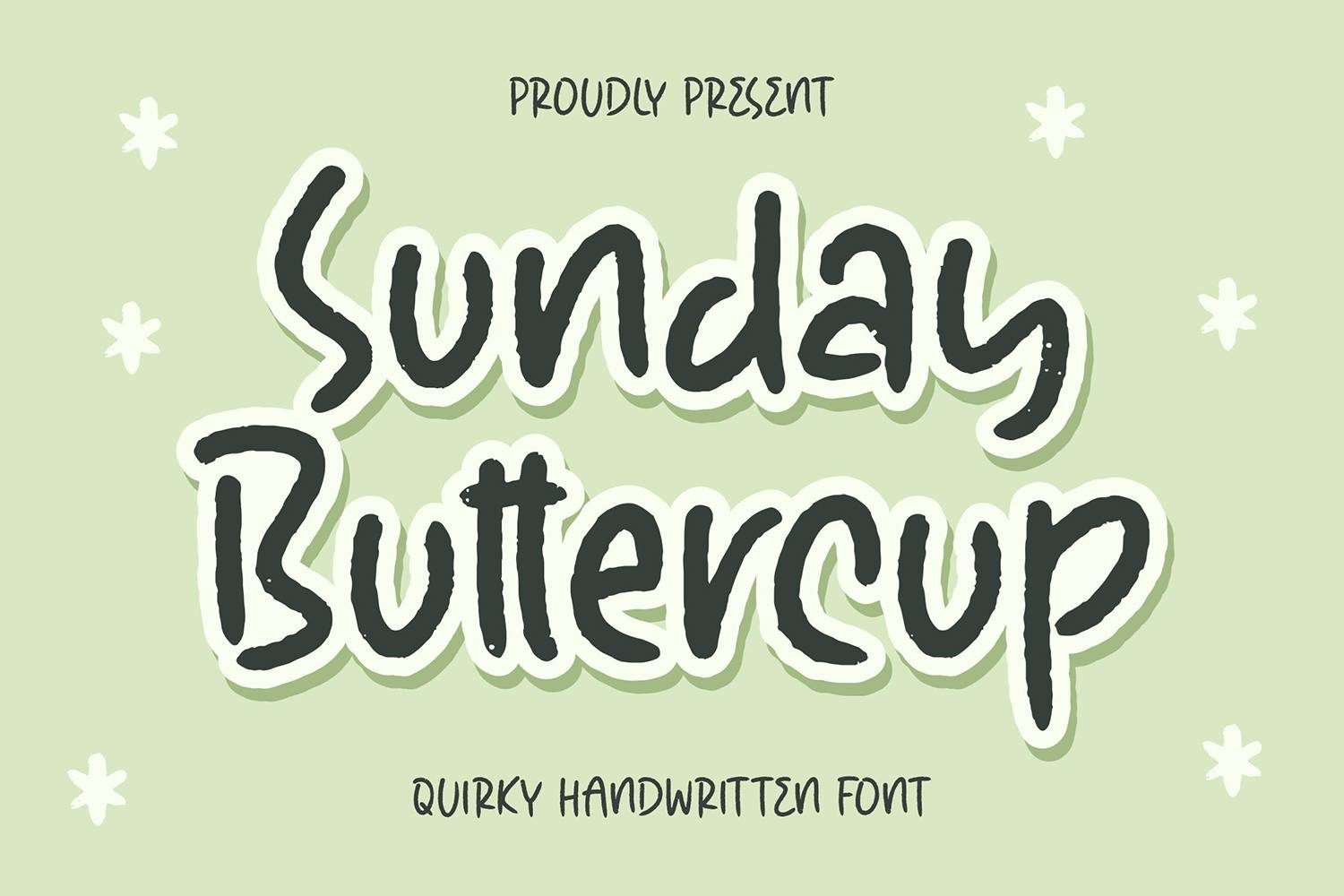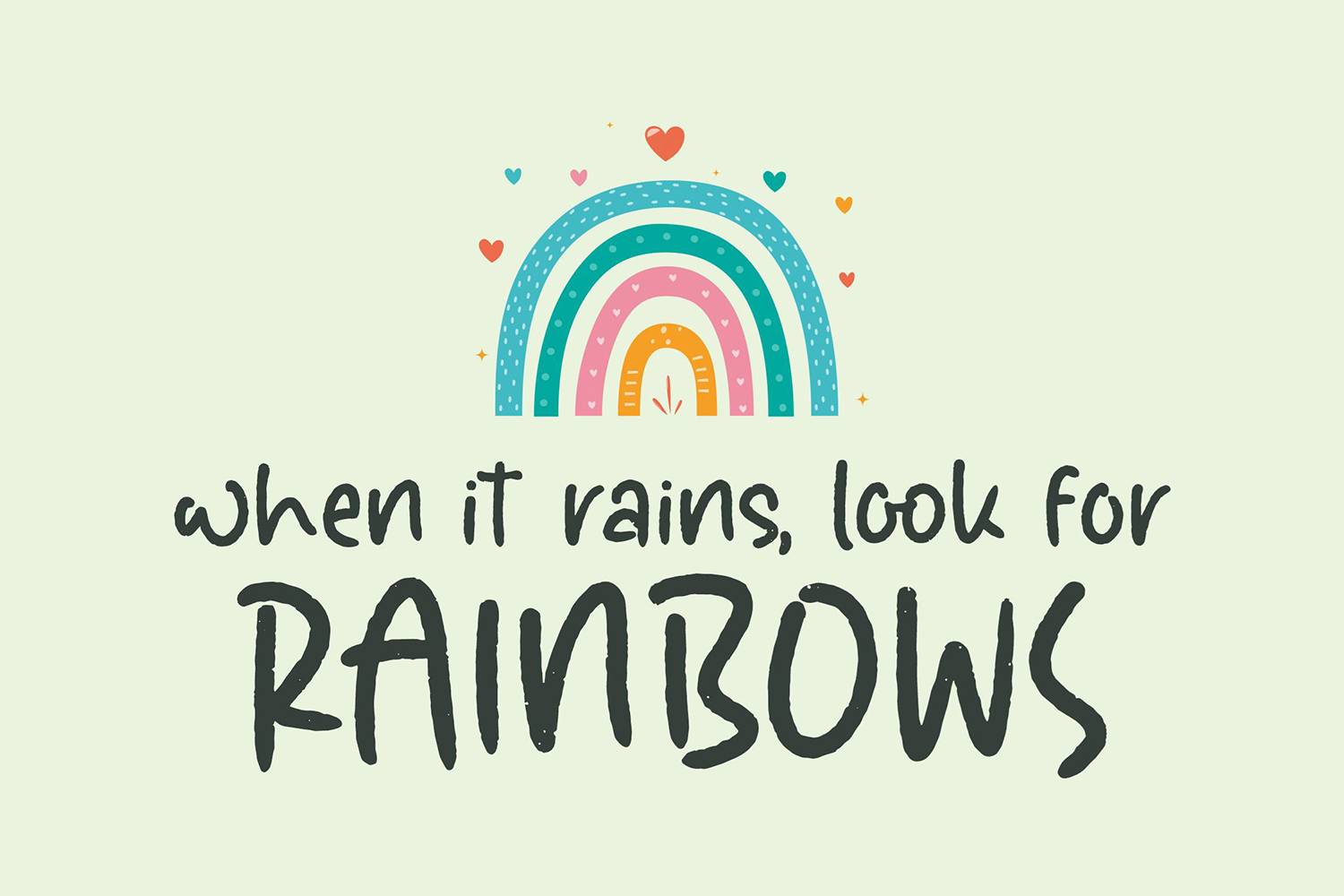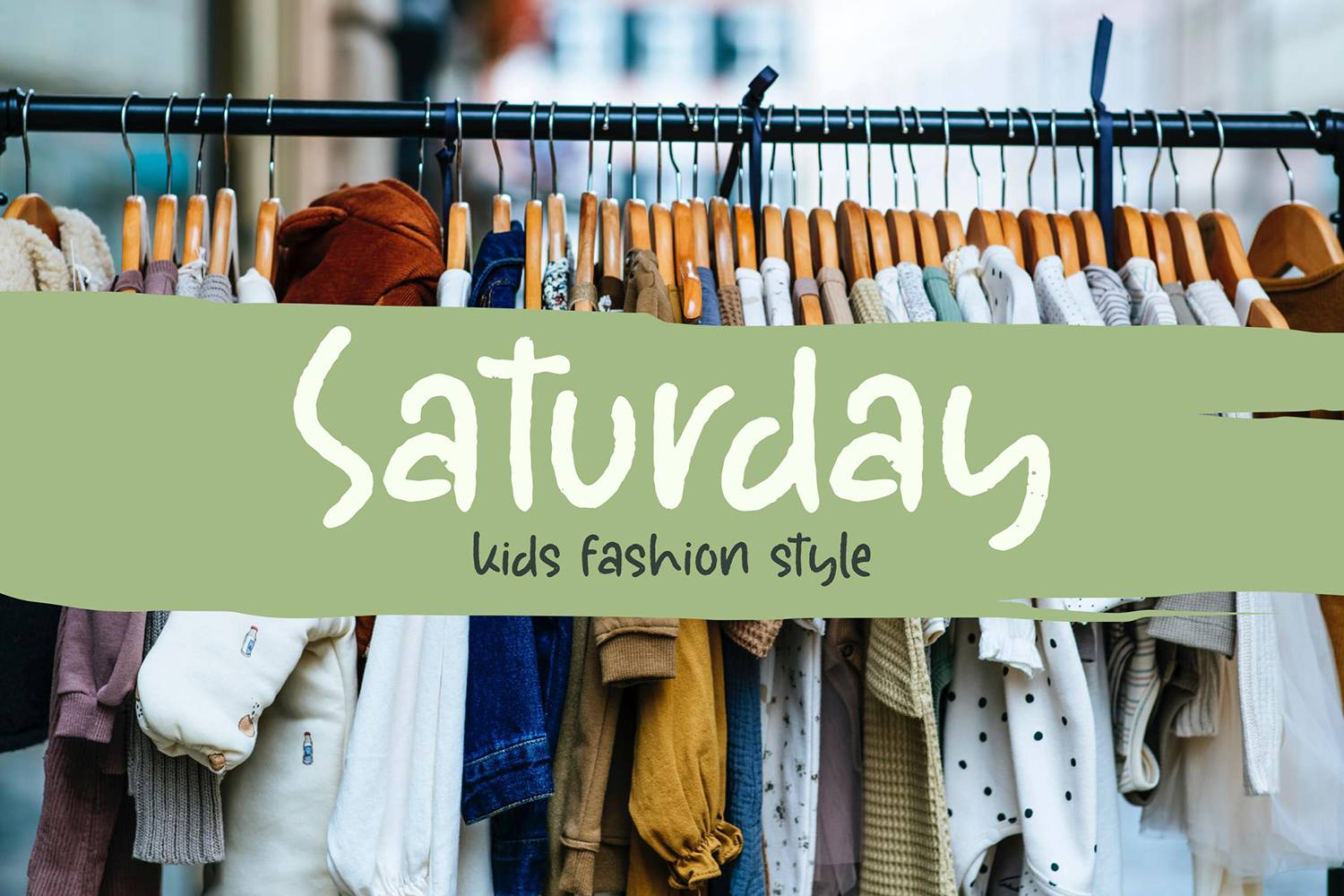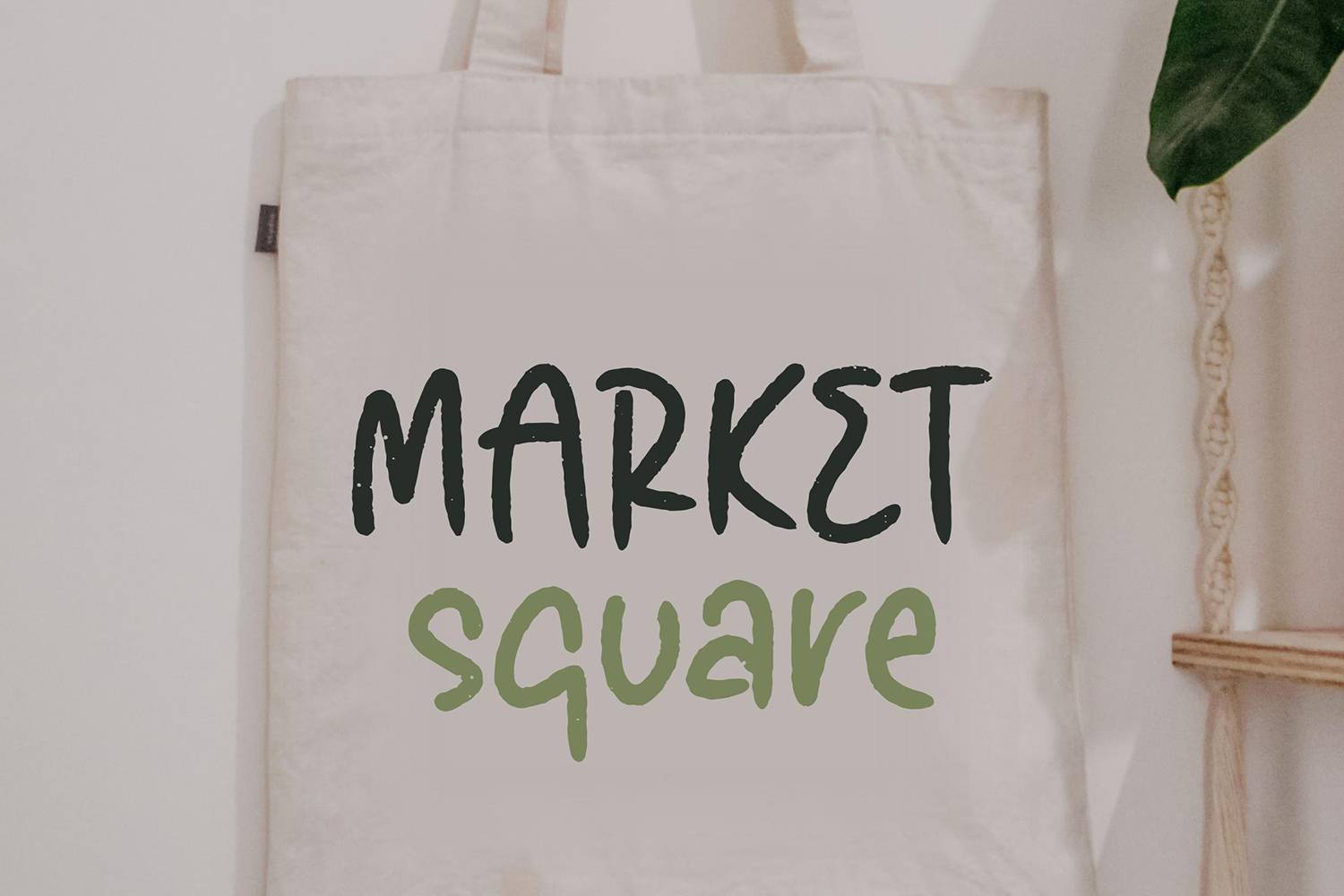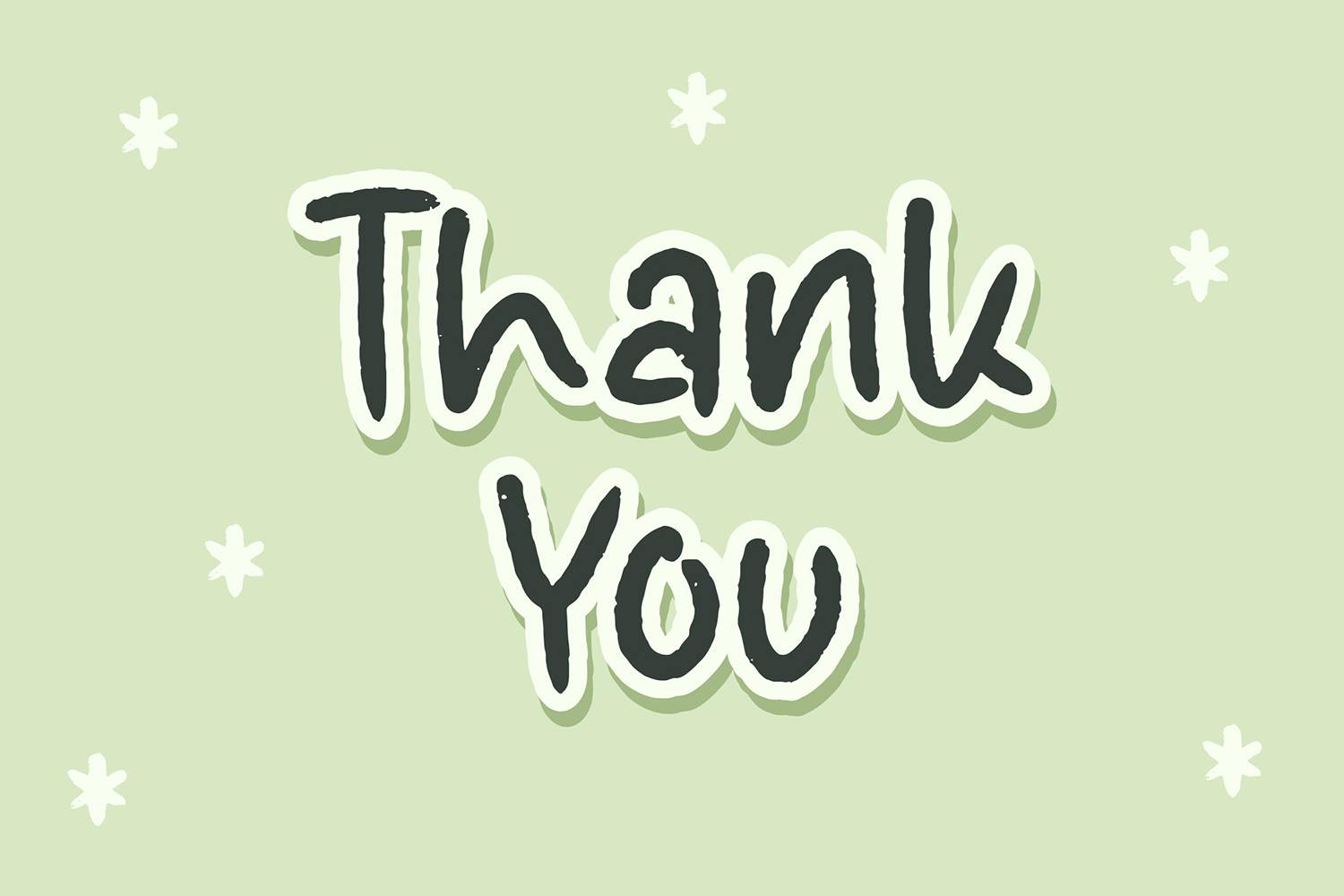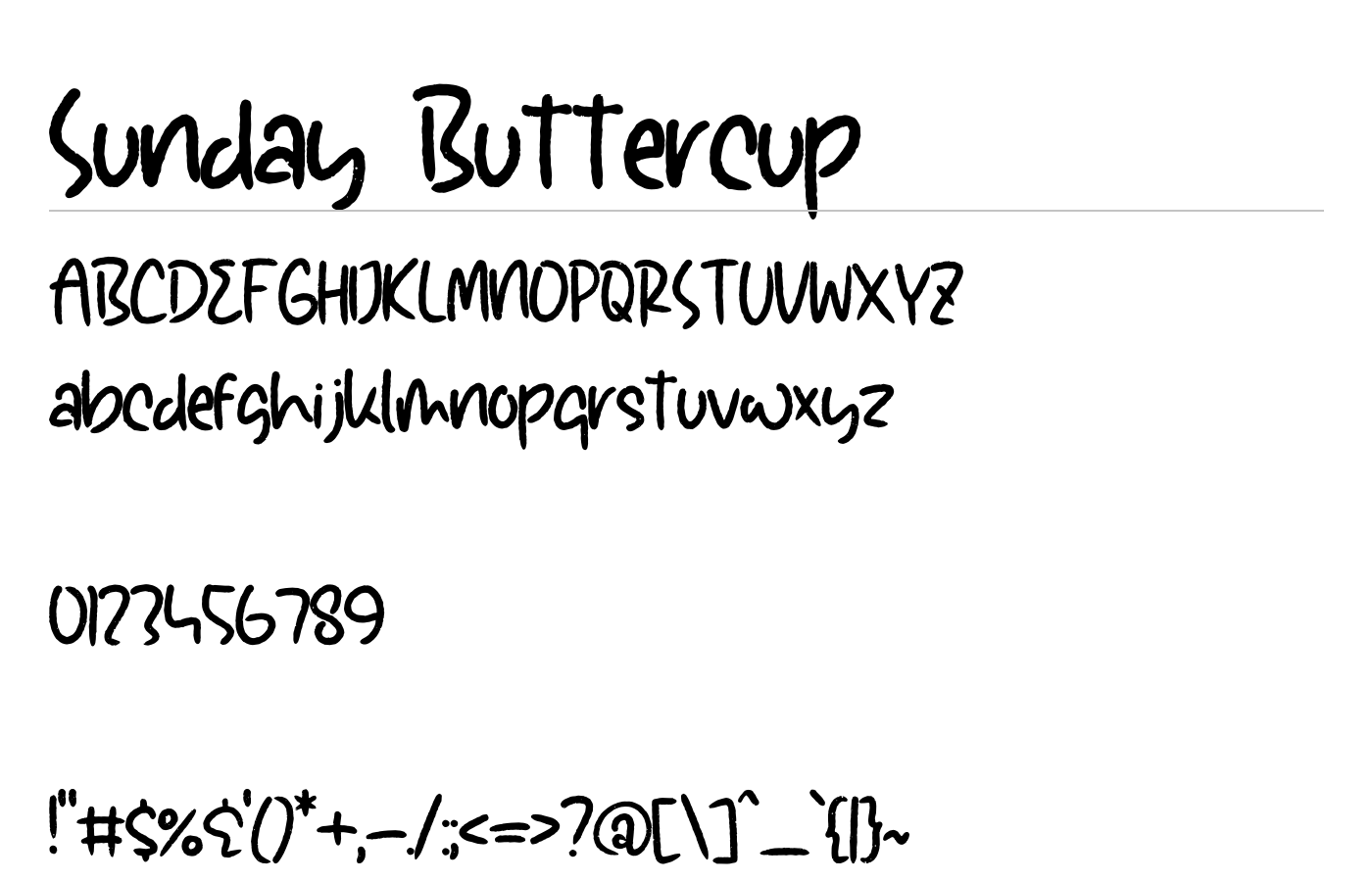
Sunday Buttercup is a casual, handwritten sans serif font with a playful and friendly vibe. Its irregular strokes and slightly uneven letterforms give it a personal, approachable feel, making it perfect for informal branding, greeting cards, or creative projects that want to convey warmth and creativity. This font works best in headlines and short texts where a natural, hand-drawn look adds charm and personality.
Sunday Buttercup Font
About Sunday Buttercup Font